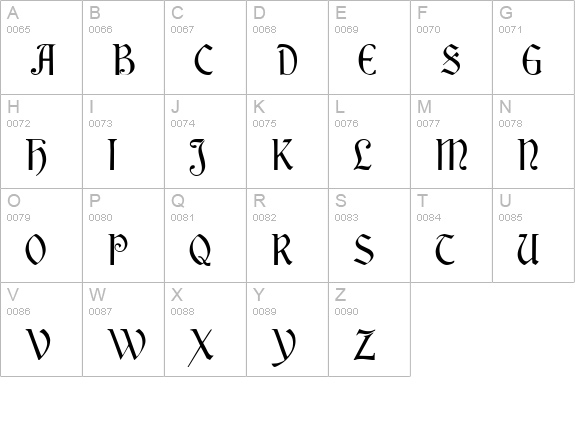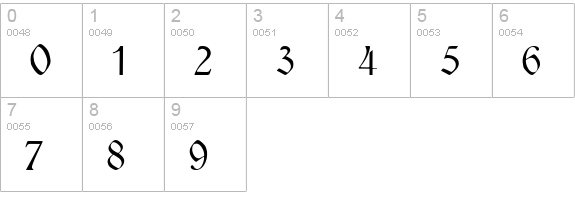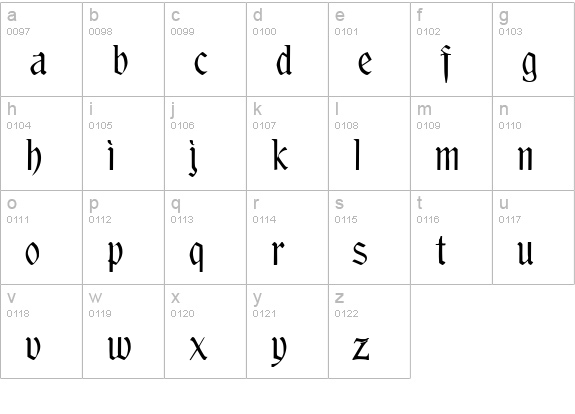
Rousseau Font Details
Introducing Rousseau font, a captivating and elegant typeface that exudes sophistication and charm. With its timeless appeal and graceful curves, Rousseau font adds a touch of class to any design project. This font is perfect for luxury branding, editorial designs, wedding invitations, and more. The best part? Rousseau font is available for free download at FontsMarket.com. Now you can effortlessly elevate your designs with this exquisite font without breaking the bank. Don't miss out on the opportunity to enhance your creative projects with the luxurious beauty of Rousseau font. Download it today and start creating stunning designs that truly stand out.